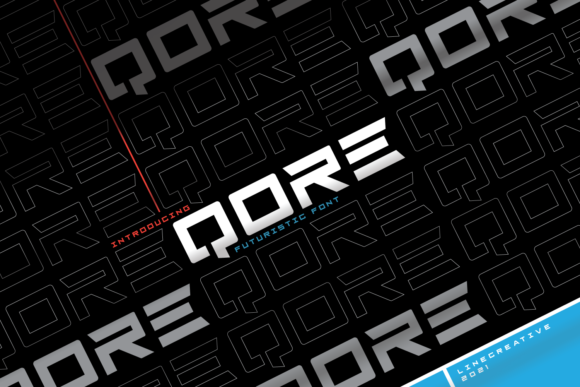
Unleash your creativity with Qore Font, the ultimate display font designed to make a lasting impression. Crafted by the ingenious minds at Line Creative, Qore Font is a bold and futuristic masterpiece that will elevate your designs to new heights. Its captivating curves and sharp lines evoke a sense of modernity and innovation, making it the perfect choice for forward-thinking individuals and businesses.
Immerse yourself in the boundless possibilities of Qore Font. Whether you're a seasoned graphic designer or just starting your design journey, this font is your gateway to creating stunning visuals that demand attention. Picture your designs adorned with Qore's unique characters, each stroke radiating confidence and sophistication. From sleek logos and eye-catching headlines to captivating posters and mesmerizing social media graphics, Qore Font is your secret weapon to leave an unforgettable mark.
Step into the world of boundless creativity and let Qore Font ignite your imagination. Its versatility knows no bounds, effortlessly adapting to a myriad of design projects. Envision your brand's identity transformed with a logo that exudes boldness and innovation. Create business cards that command attention, leaving a lasting impression on potential clients. Unleash your artistic flair in web designs that captivate and engage visitors, leaving them in awe of your digital prowess. The possibilities are endless, limited only by your imagination.
With Qore Font, you're not just downloading a font; you're investing in a design revolution. Its meticulously crafted characters are a testament to the passion and dedication of its creators, ensuring that your designs stand out from the crowd. Join the ranks of creative visionaries who have discovered the power of Qore Font and witnessed the transformative impact it has on their designs.
Don't settle for ordinary fonts that blend into the background. Embrace Qore Font, the display font that commands attention and sets your designs apart. Experience the thrill of creating visuals that resonate with your audience, leaving them captivated and inspired. Qore Font is more than just a font; it's a gateway to a world of limitless creativity, waiting to be explored.